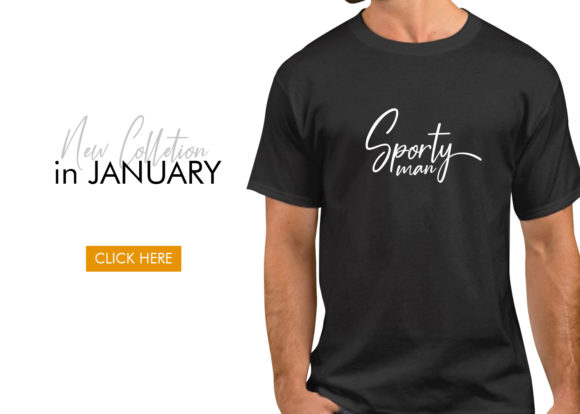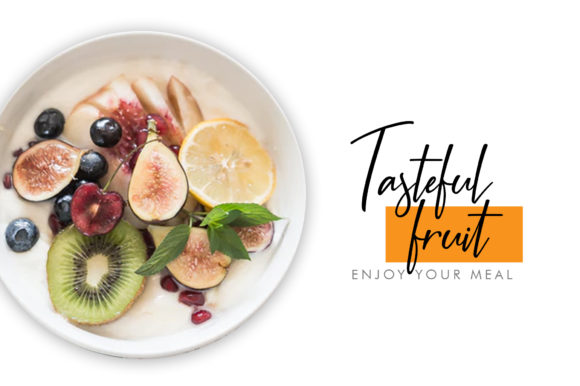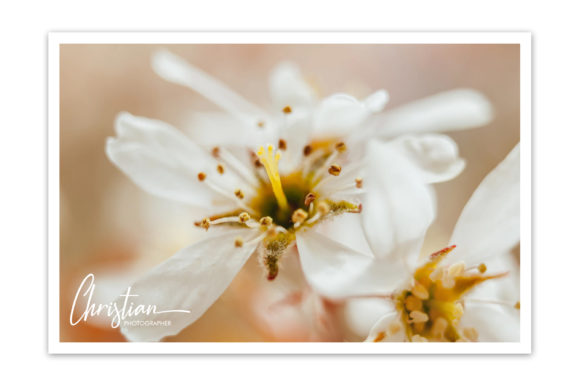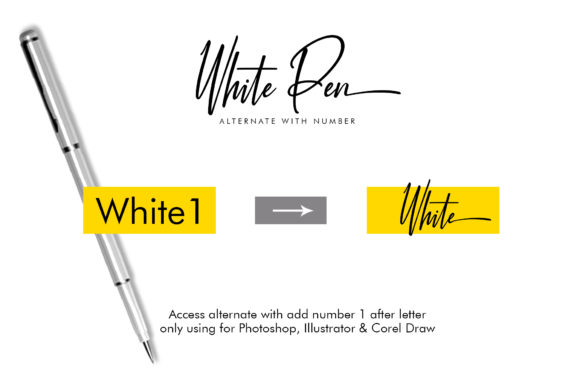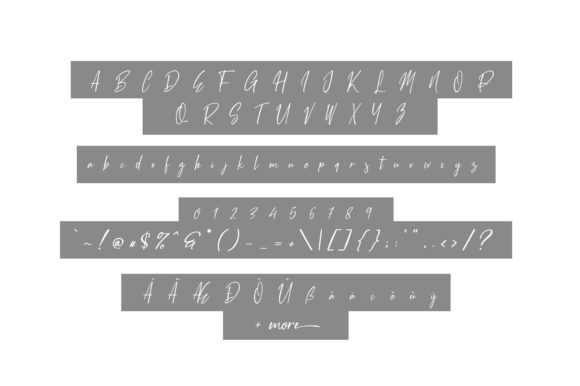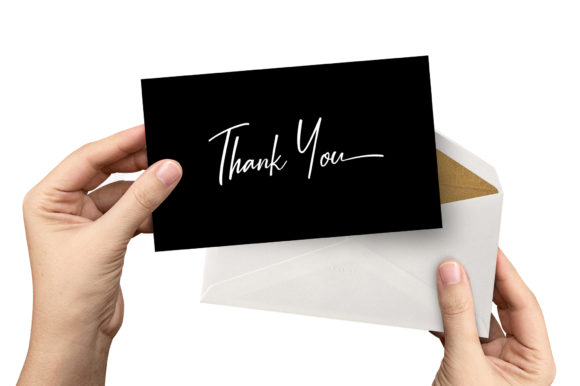
White Pen Script Font
About White Pen Script Font
The White Pen is a fresh and unique script font. It has a fun and elegant feel which can be used to create your own logo, poster, wedding invitation, and much more!